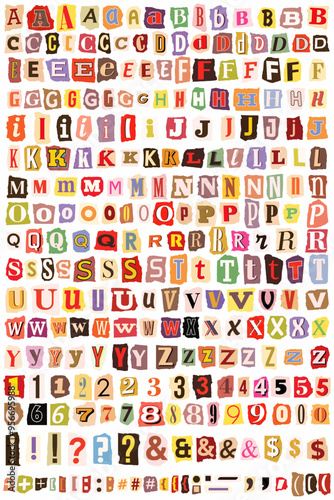
Ransom Letters Notes Cut Out Paper Collage Style Colorful Design Elements torn vector alphabet. Cutout Blackmail Kidnapper Anonymous Criminal Note Font. English Letters, Numbers and punctuation marks